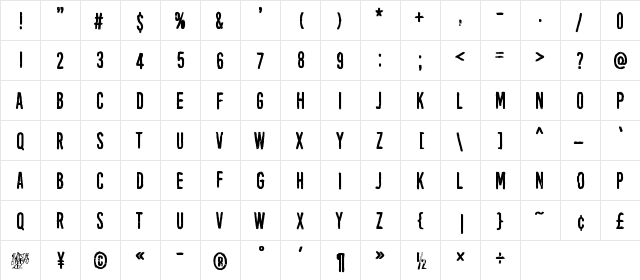
Black Owl Regular
Design Context for Black Owl Typeface
Black Owl is a composed and adaptable typeface that performs quietly and consistently across a wide range of design contexts.